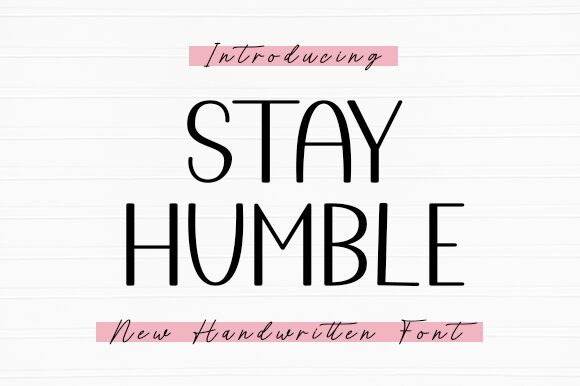
Stay Humble
Stay Humble font is the handwritten creation of Wahyu Studio made with a condensed width. Its tall characters feature clean geometric lines that give it a modern aesthetic and minimalistic touch. The typeface mixes uppercase and lowercase styles for an added decorative look.
Versatile in its applications, this font can be used for posters, business cards (especially for designers), quotes, social media posts, stationery branding, product package designs, invitations, headings on blogs or websites, apparel designs such as t-shirts and caps printing.